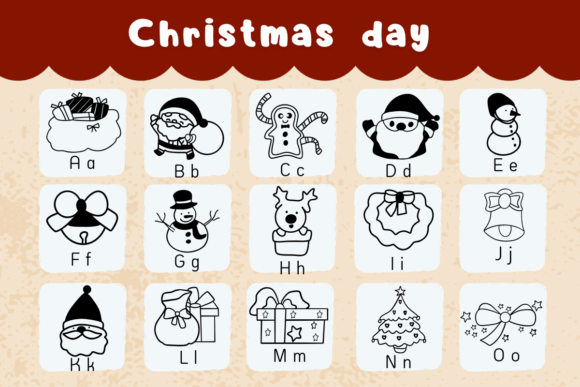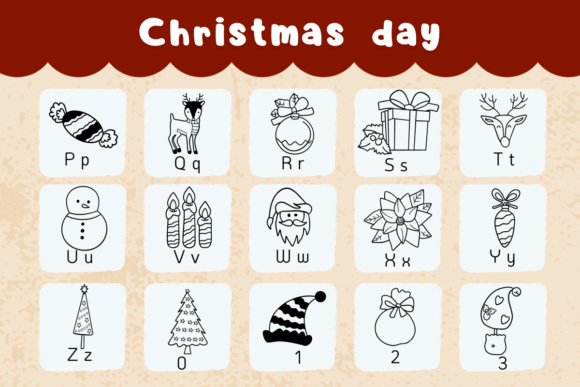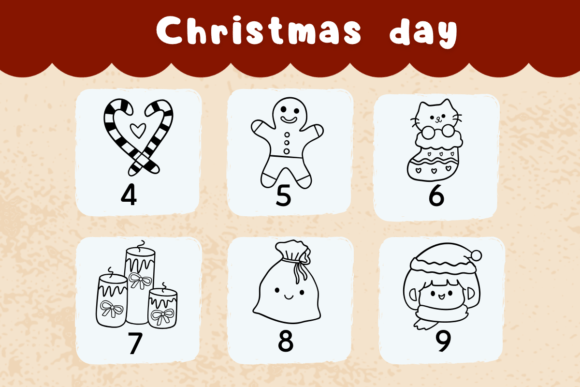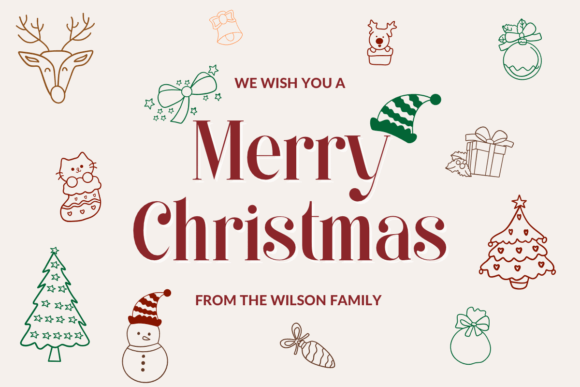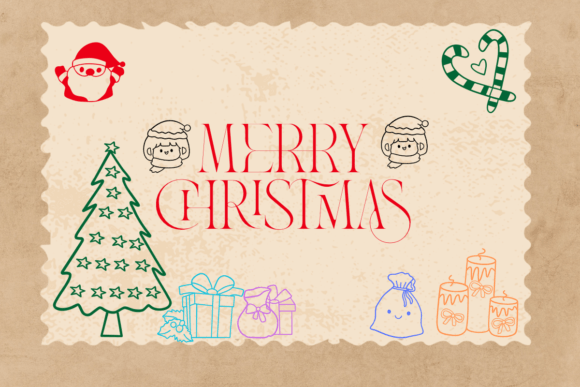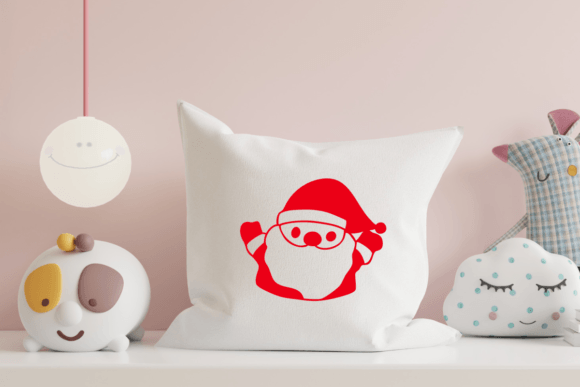
Christmas Day Dingbat Font: A Playful Font Filled with Festive Icons
Are you looking for a fun and creative way to add some holiday cheer to your designs, cards, and crafts? Look no further than the Christmas Day Dingbat Font! This playful font is filled with cute Christmas images like trees, snowflakes, stockings, and presents, making it perfect for anyone looking to add a touch of festive flair to their work.
What is a Dingbat Font?
For those who may not be familiar, a dingbat font is a type of font that replaces traditional letters and characters with images or symbols. In the case of the Christmas Day Dingbat Font, each letter is replaced by a festive icon, making it a unique and fun way to add some holiday cheer to your designs.
Features of the Christmas Day Dingbat Font
The Christmas Day Dingbat Font is a treasure trove of festive icons, featuring a wide range of Christmas-themed images, including:
- Christmas trees
- Snowflakes
- Stockings
- Presents
With this font, you can create a wide range of holiday-themed designs, from simple and elegant to complex and playful. The possibilities are endless!
Uses for the Christmas Day Dingbat Font
The Christmas Day Dingbat Font is perfect for a variety of uses, including:
- Christmas decorations and signs
- Crafts and DIY projects
Whether you’re a designer, crafter, or simply someone who loves the holiday season, this font is sure to bring some festive fun to your work.
Tips for Using the Christmas Day Dingbat Font
Here are a few tips for getting the most out of the Christmas Day Dingbat Font:
- Experiment with different font sizes and colors to create a unique look
- Combine the font with other holiday-themed elements, such as images or patterns, to create a cohesive design
- Use the font to create a focal point in your design, such as a holiday greeting or title
The Christmas Day Dingbat Font is a fun and festive way to add some holiday cheer to your designs, cards, and crafts. With its wide range of cute Christmas images and easy-to-use format, it’s perfect for designers, crafters, and anyone looking to add a touch of festive flair to their work. So why not give it a try and see what kind of holiday magic you can create?